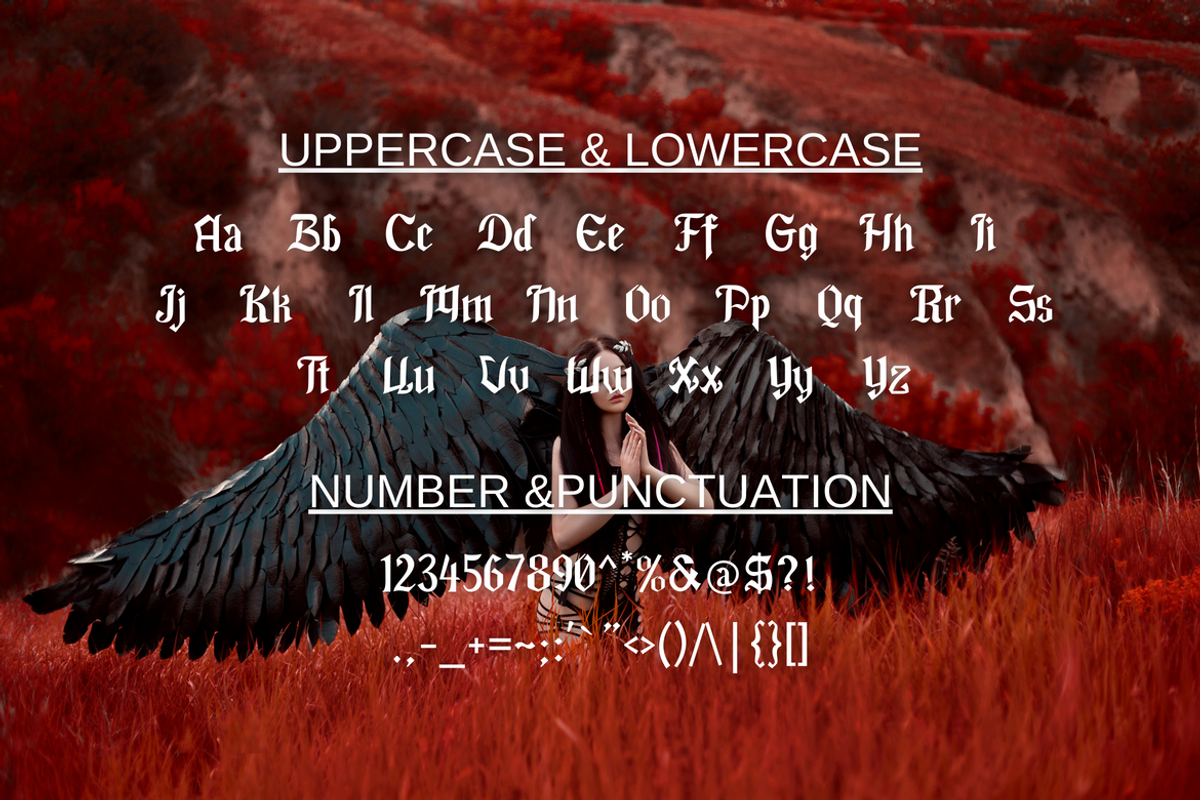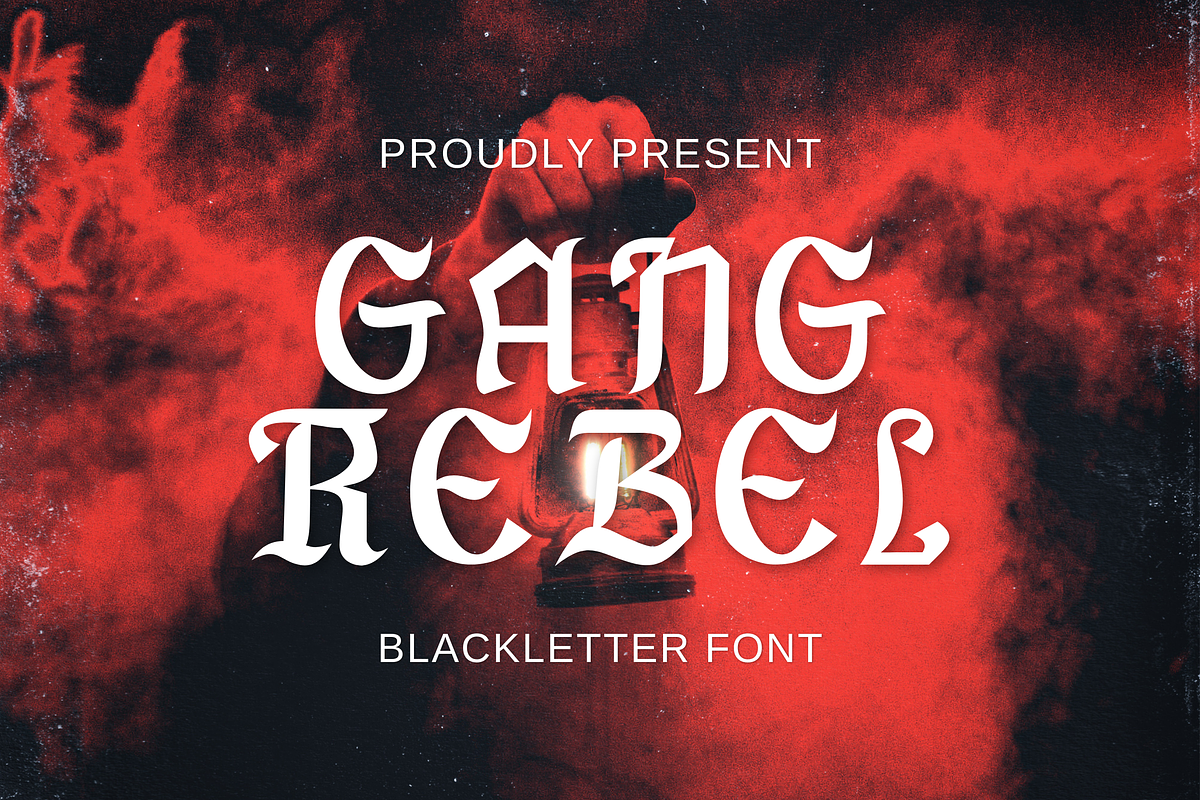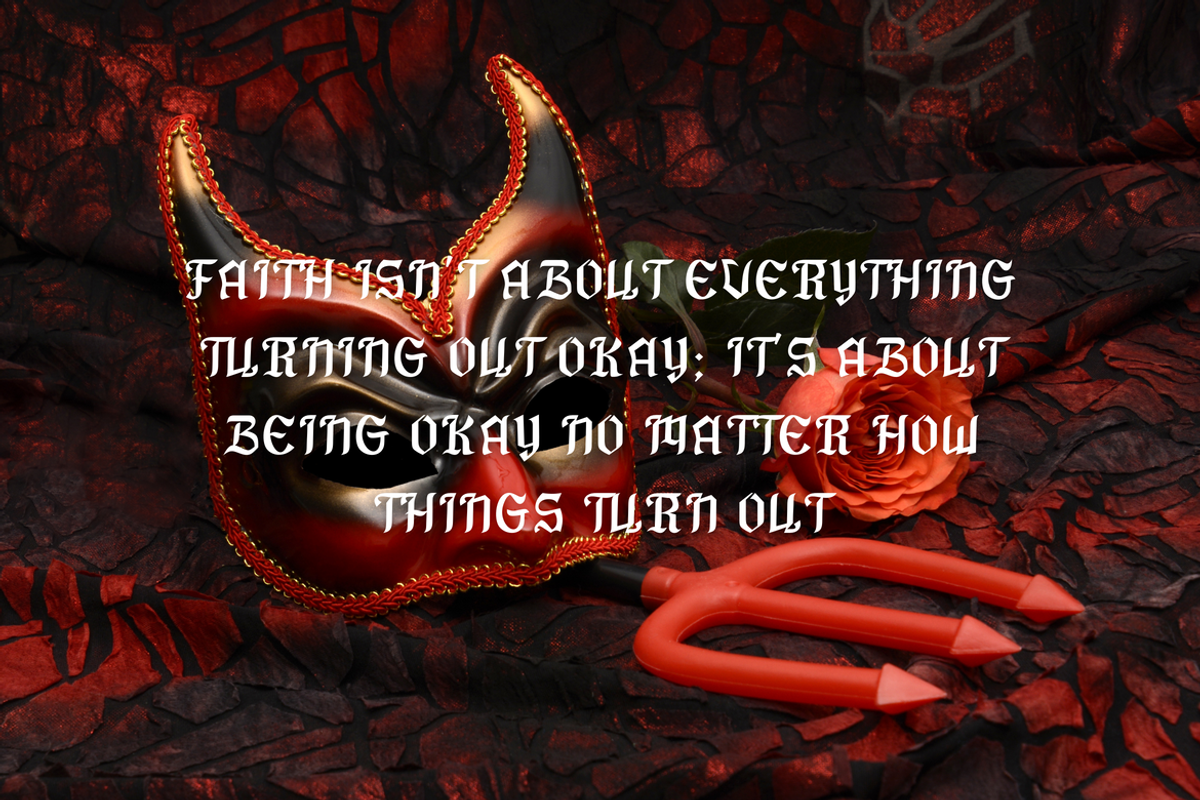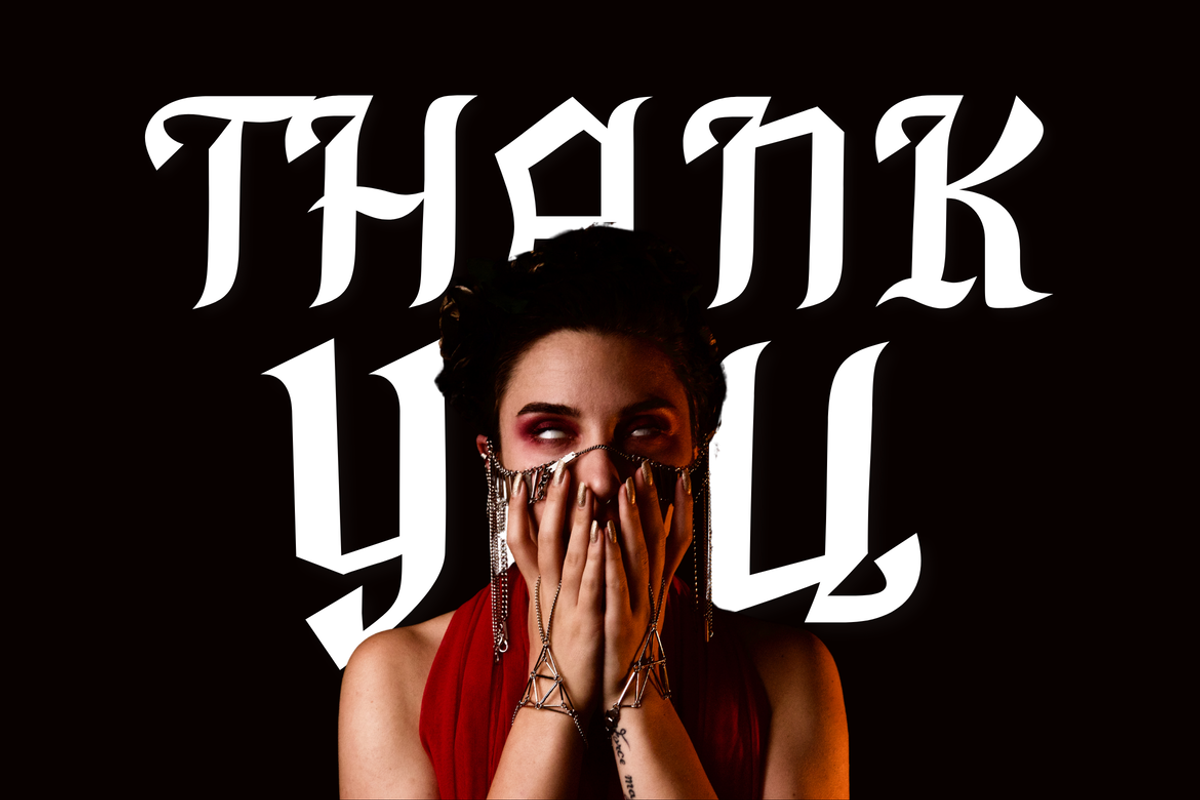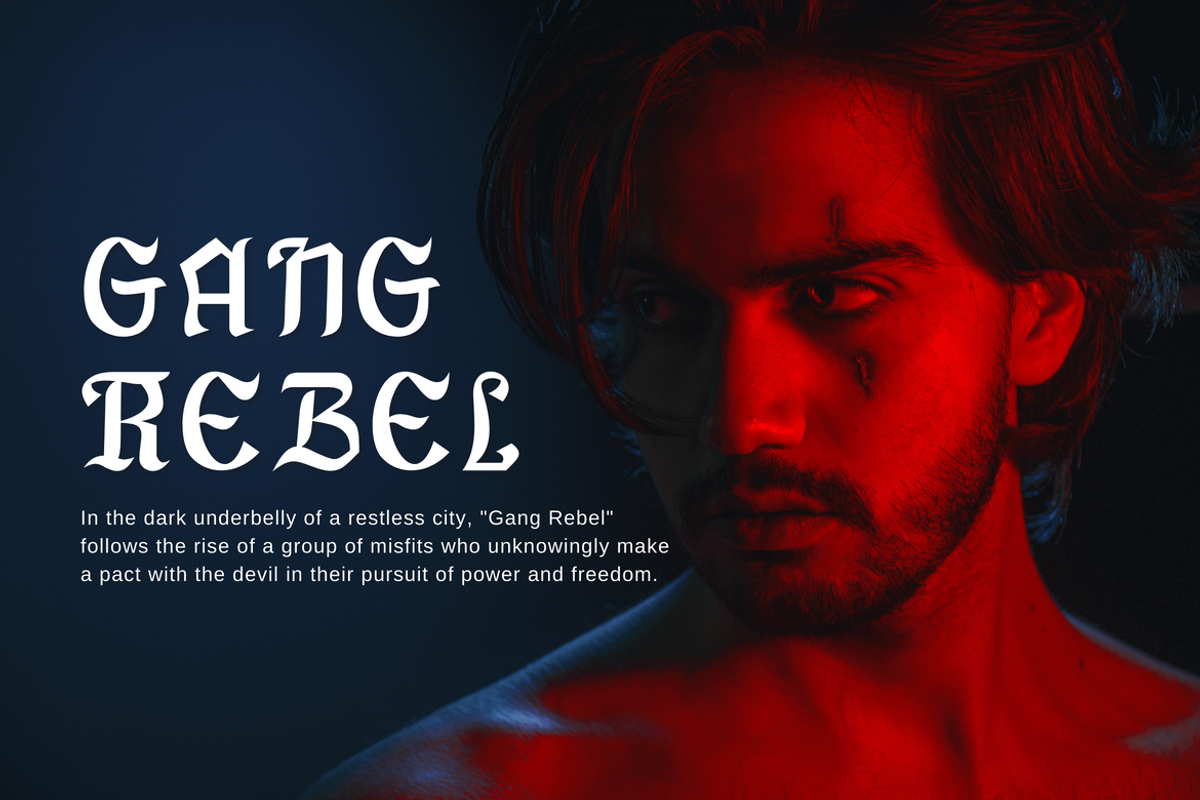
Gang Rebel | Blackletter
Gang Rebel is a Blackletter Medieval display serif font that marries intricate gothic letterforms with a rich historical feel. Its ornate and detailed design evokes a sense of grandeur and tradition, perfect for creating an authoritative and dramatic impression.